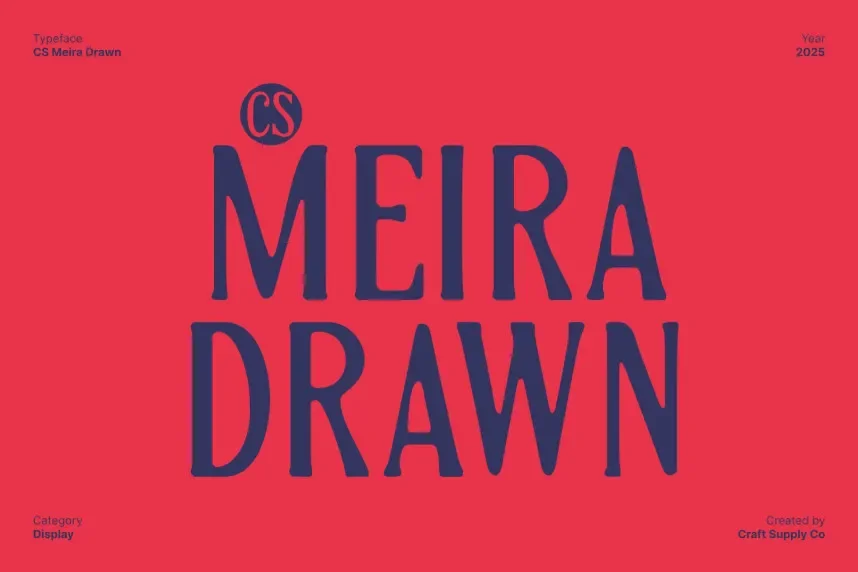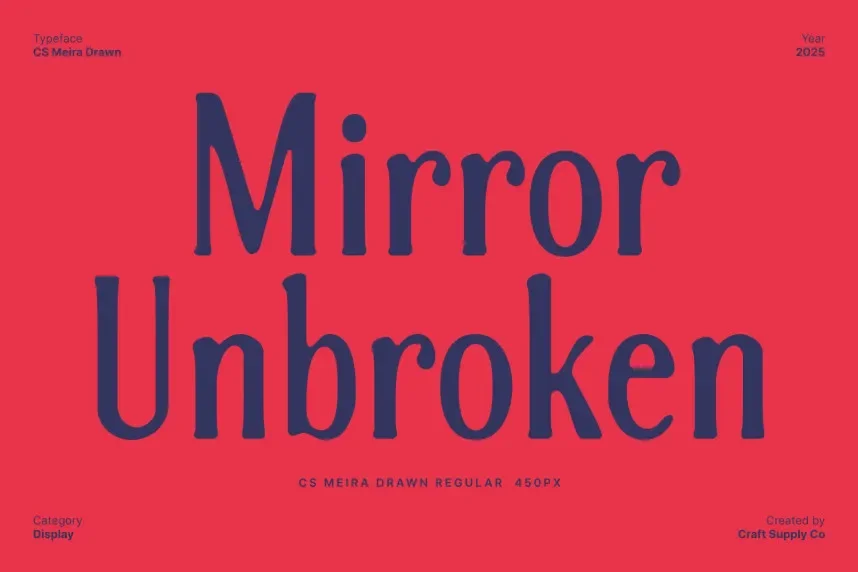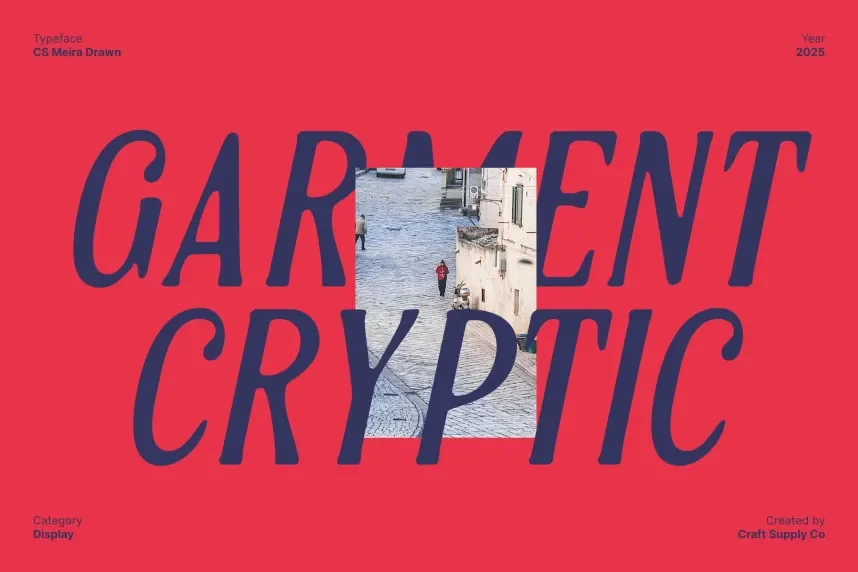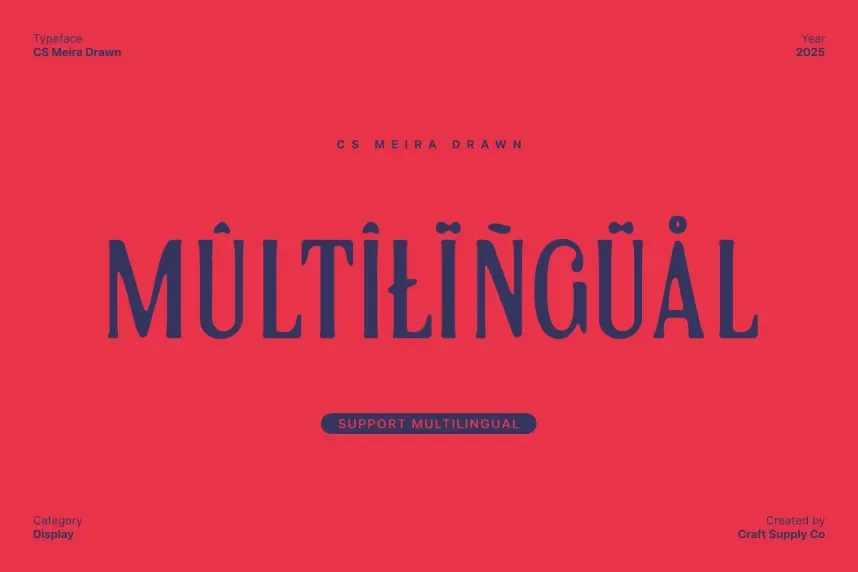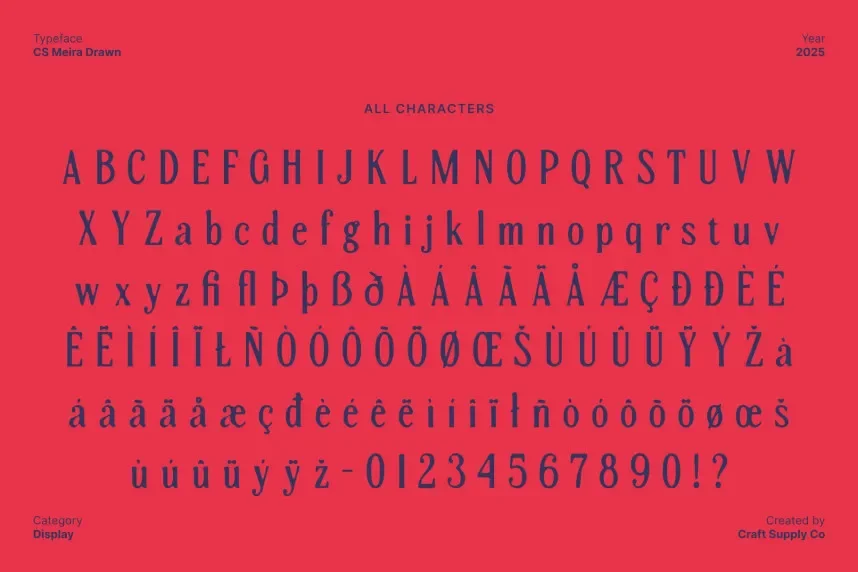
CS Meira Drawn Font helps solve the problem of adding bold, hand-drawn style to branding projects while maintaining readability. It’s perfect for designers who need impactful, creative fonts for short text.
CS Meira is a display font with bold strokes, dramatic curves, and a hand-drawn appearance. Its irregular letterforms are designed for creative projects where visual interest is key, making it ideal for headlines and logos.